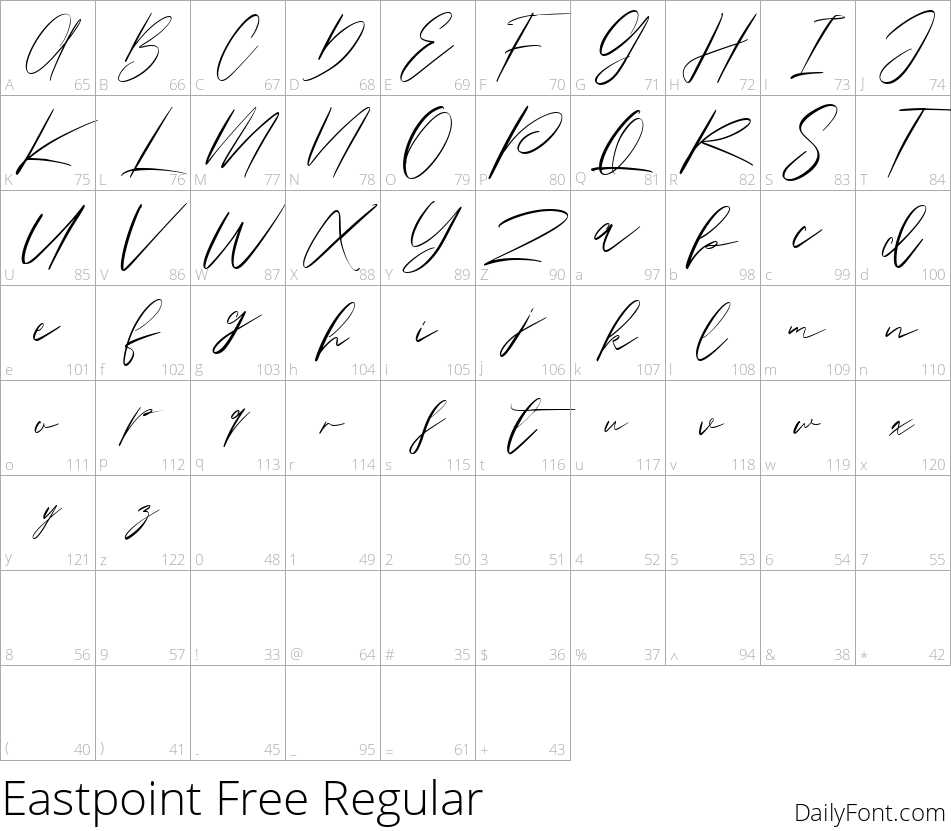
Eastpoint
Searching for a sophisticated script font that exudes elegance and refinement? Look no further! This stunning font combines the best of traditional calligraphy with modern flair, making it perfect for projects where you want to convey sophistication and poise.
With its balanced and varied letterforms, this font strikes just the right tone - not too thin or wispy, nor too thick or imposing. The result is a truly harmonious blend of classic charm and contemporary polish, ideal for use in a wide range of design applications.
Whether you're looking to add a touch of luxury to your branding materials, create a sense of refinement in your packaging designs, or simply want to elevate the tone of your digital content, this font is sure to impress. Its versatile nature makes it equally suitable for formal documents, invitations, and even editorial work.
What sets this font apart from others in its class is its ability to effortlessly convey a sense of warmth and personality, while still maintaining a level of sophistication that's hard to find in more modern script fonts. The result is a truly unique and compelling typeface that's sure to leave a lasting impression on your audience.